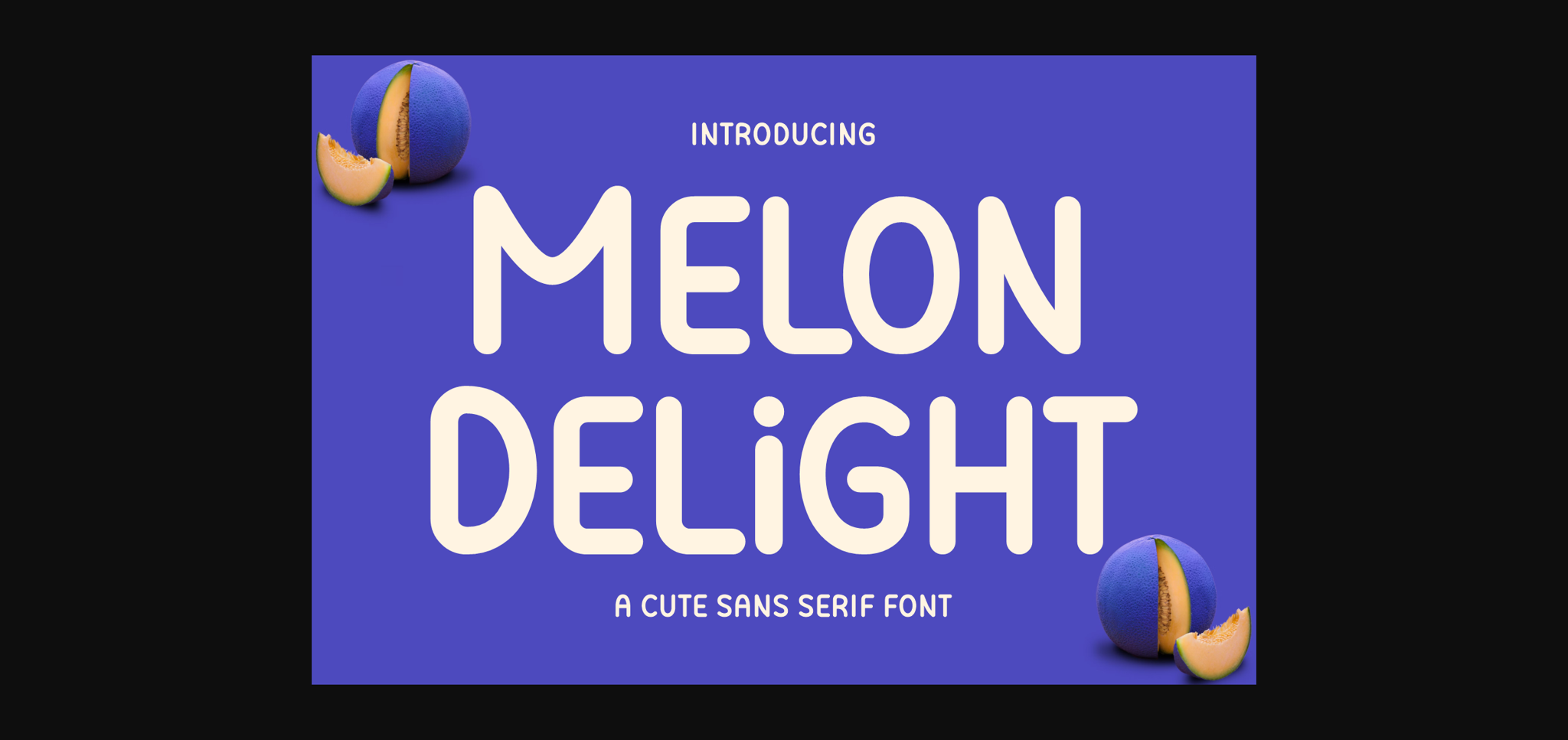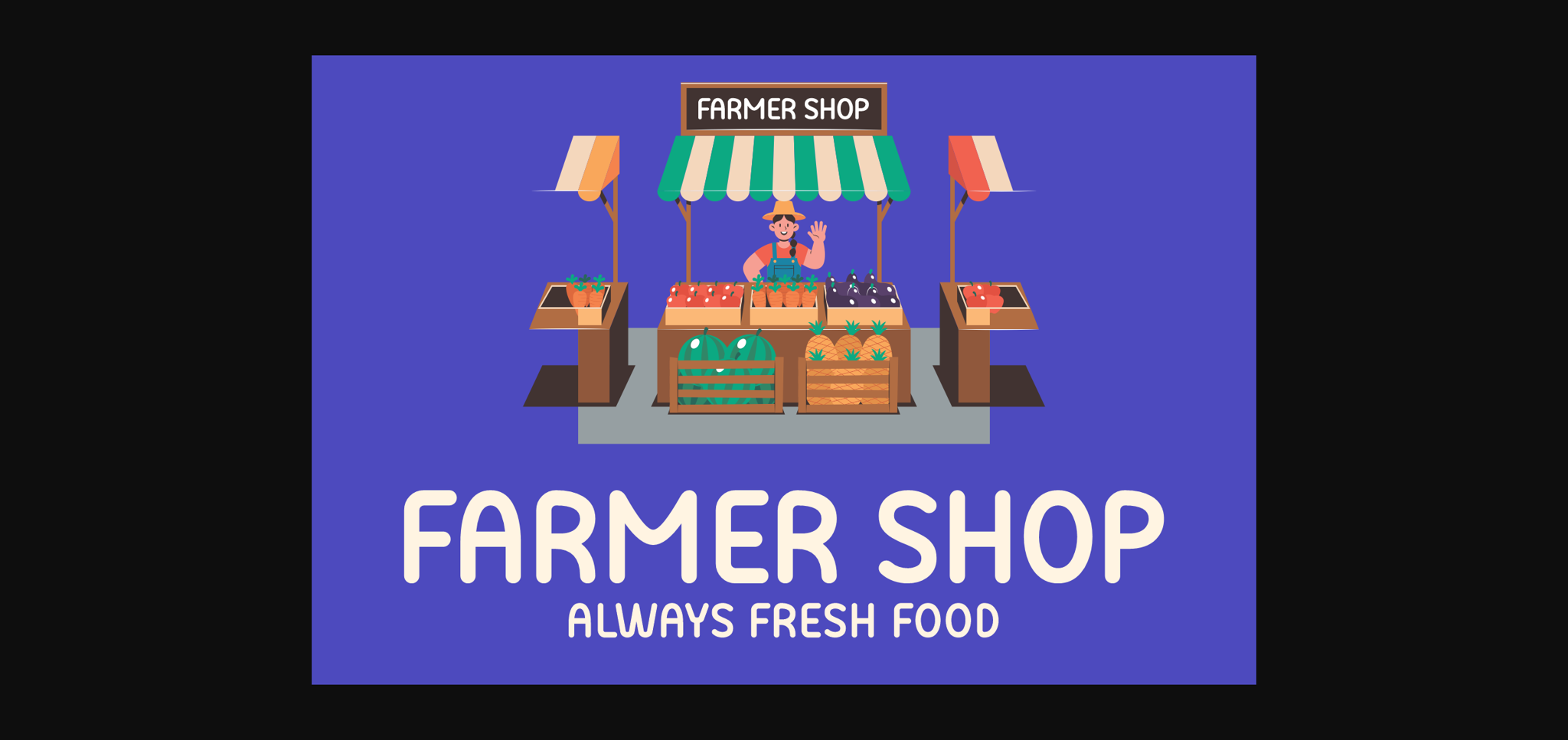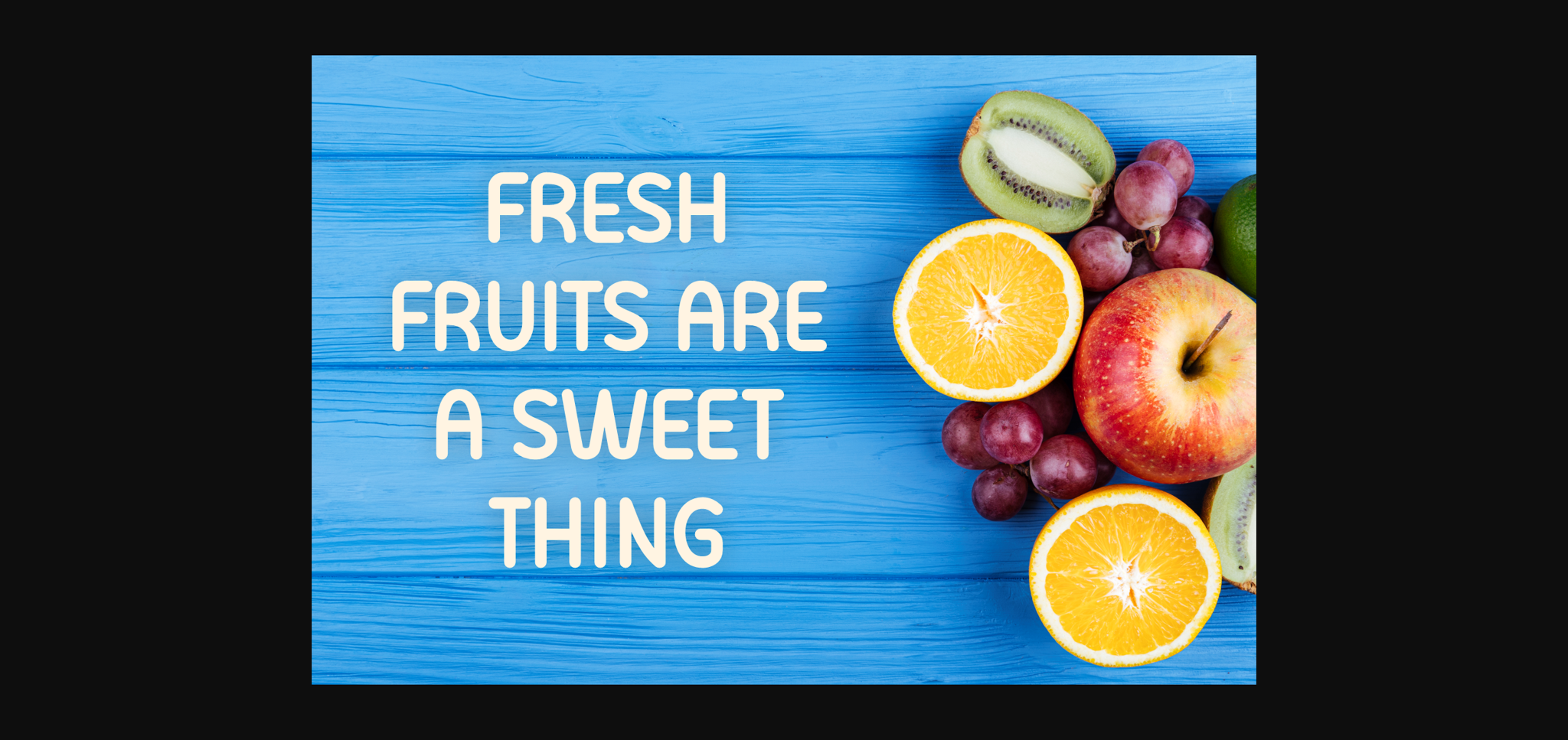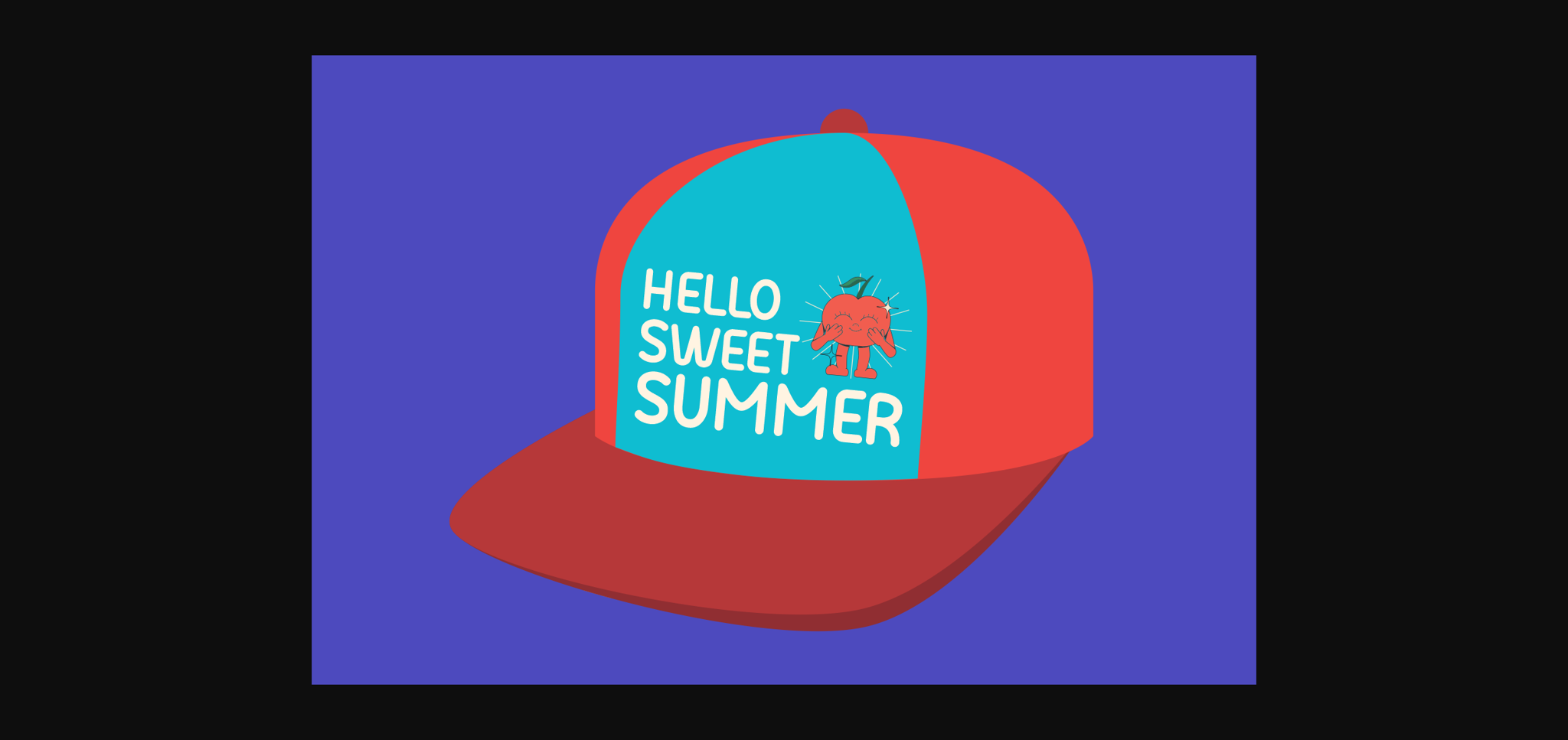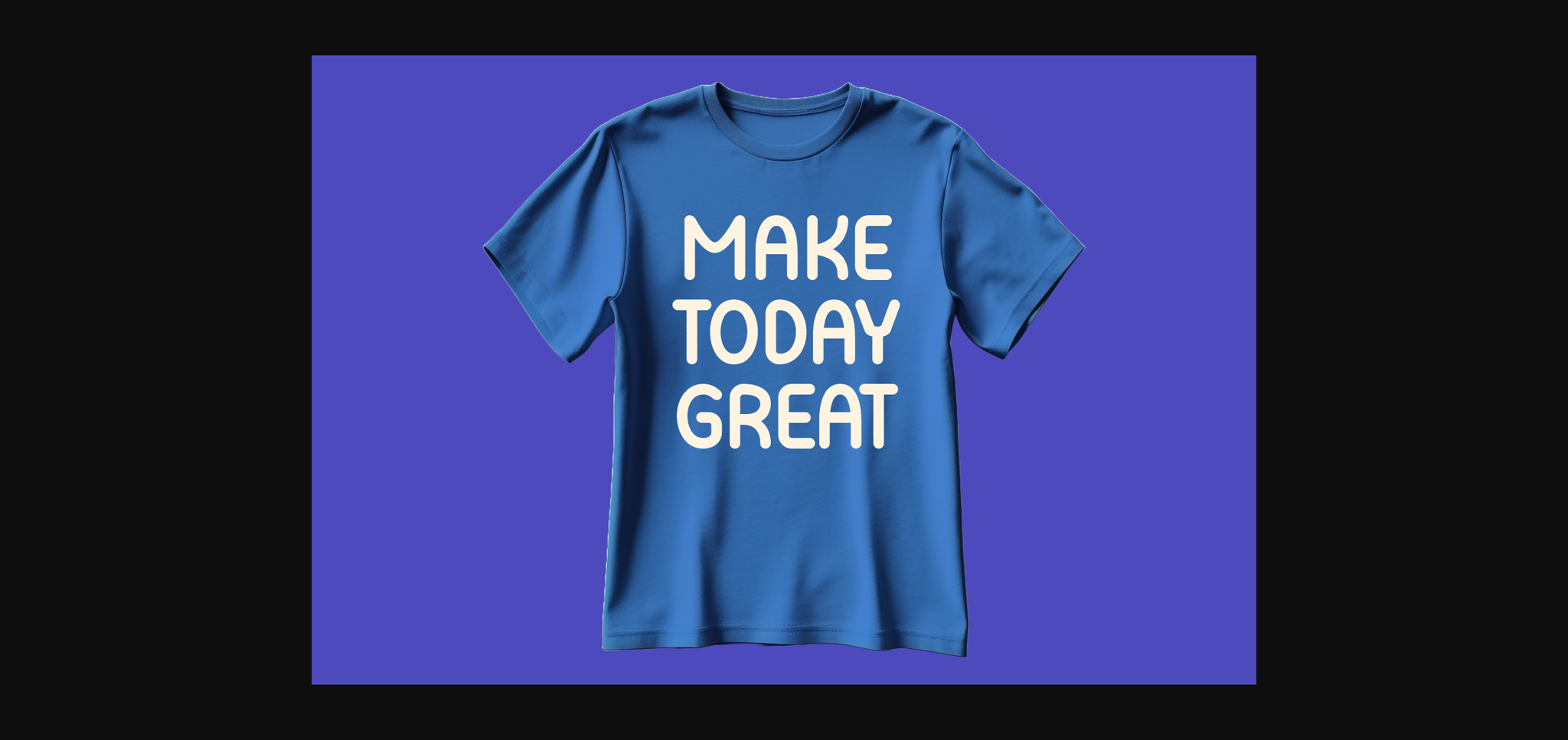
About Melon Delight Font
Melon Delight is a sweet and friendly sans serif font. Its natural and unique style makes it incredibly fitting to a large pool of designs. The only limit is your imagination!